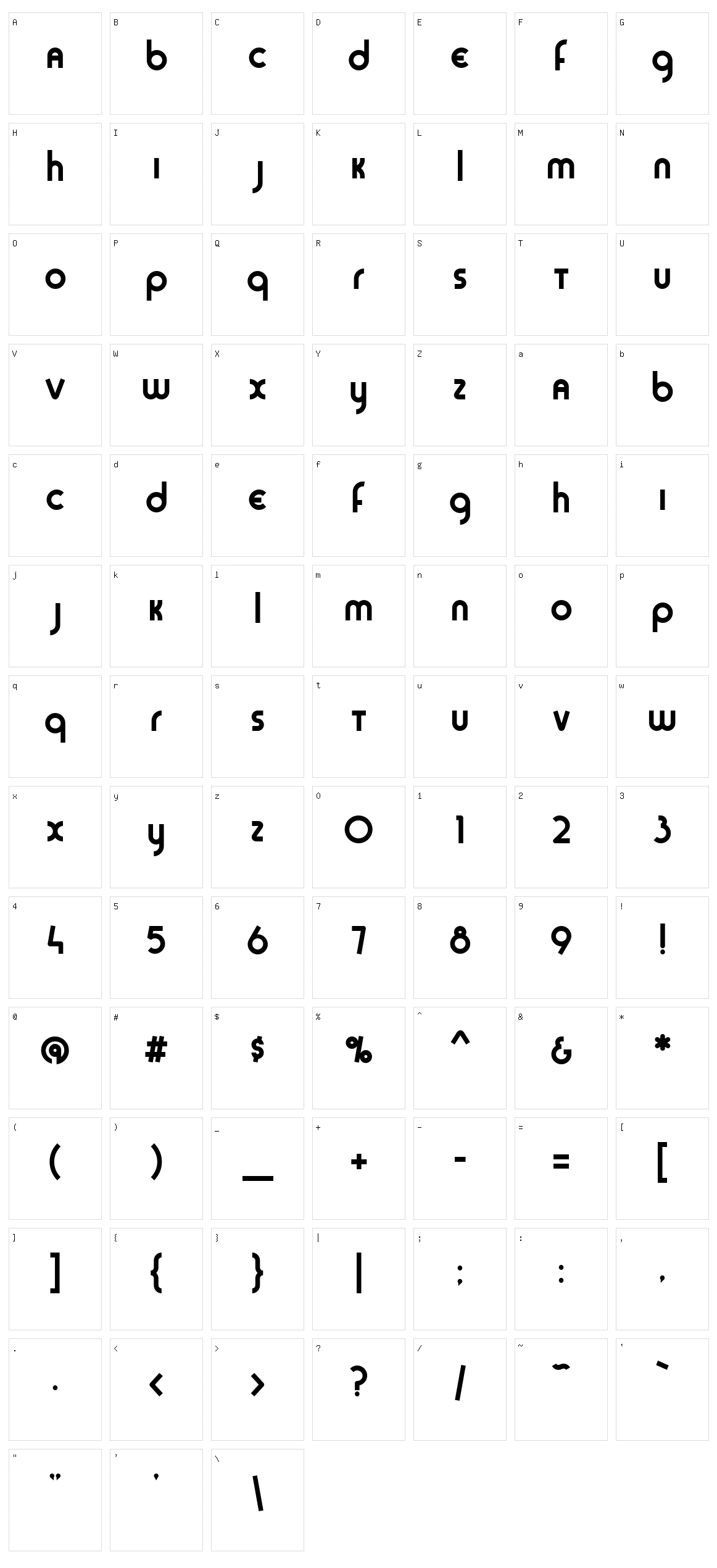
SANS SARA
A Font by S. John Ross
This is the initial release of a font with several future releases and related fonts planned. SANS SARA is an all-new Bauhaus-styled font modeled on two things: the style Herbert Bayer, and the style, writing, and even personality of Sara King, a woman my wife and I love very much. This release, finalized and released on Sara's birthday, is a tribute to her, one of many to come. The many playful and symbolic connections between Sara King and Herbert Bayer will be documented in a special PDF to be included with later releases ... but for now suffice it to say that every detail of the font is symbolic in some way.